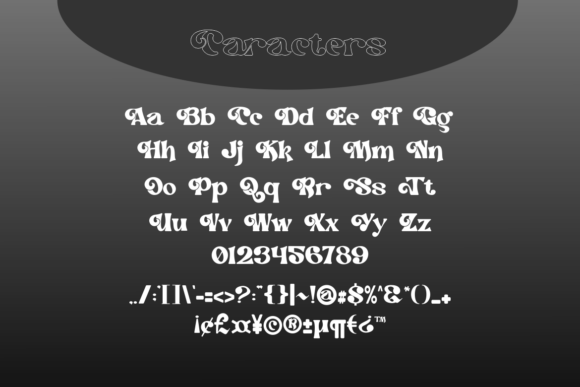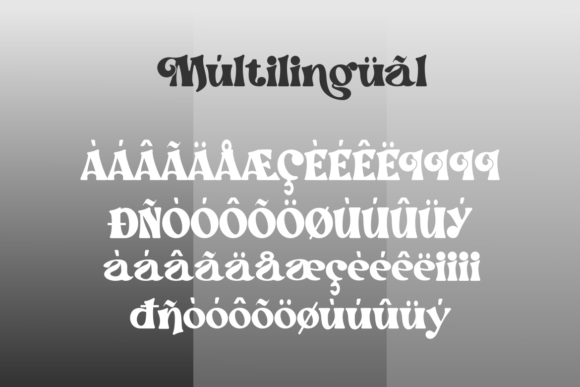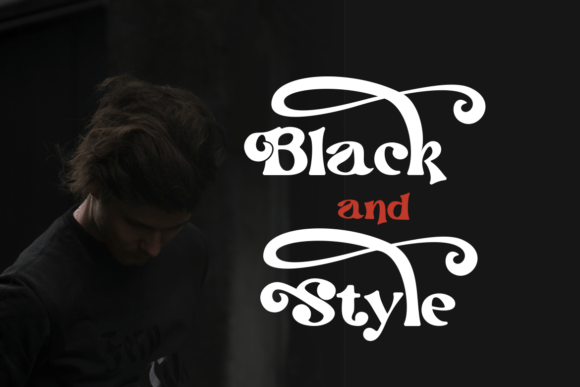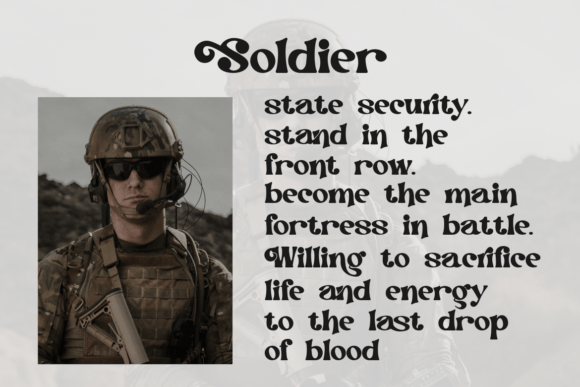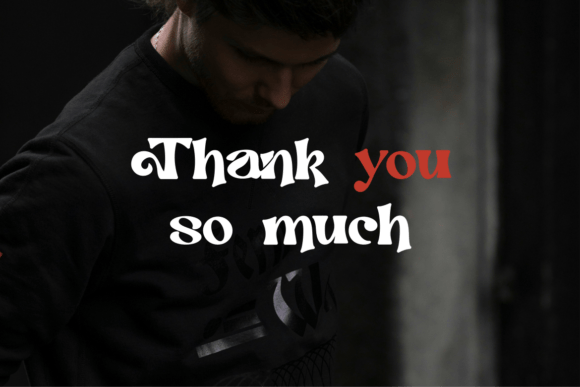
The Angely Font: A Modern-Vintage Masterpiece for Bold Designs
I still remember the design project that led me to discover the Angely font. I was working on a music festival poster, and I needed a typeface that would make a statement. I had tried countless fonts, but none seemed to capture the perfect blend of modernity and vintage charm. That was until I stumbled upon Angely. Its thick, luscious weight and dramatic swashes instantly elevated my design, and I knew I had found the perfect fit.
- ✨ Impactful and attention-grabbing: Angely is built for bold designs, making it perfect for headlines and titles that demand attention.
- ✅ Nostalgic yet modern: The font’s mid-century advertising vibe is refined for today’s high-resolution displays, giving it a fresh and contemporary feel.
- 💥 Custom-lettered look: The character-rich swashes can interlock and overlap, creating a unique, hand-crafted aesthetic.
- 📸 Pairs well with photography: Angely looks stunning with grainy black-and-white photography, adding an extra layer of depth to your designs.
Small Quirks and Limitations:
While Angely is an exceptional font, there are a few things to keep in mind:
- ⚠️ Legibility at smaller sizes: Due to its thick weight and ornate swashes, Angely may not be the best choice for body text or smaller font sizes.
- 🤔 Swash placement: Some swashes may not align perfectly, requiring manual adjustment for optimal results.
The Story Behind Angely: Designer Inspiration
Angely’s design is inspired by the golden age of advertising, when bold, eye-catching typography ruled the billboards and magazines. The font’s creator aimed to distill the essence of mid-century modern design, infusing it with a contemporary twist. The result is a typeface that feels both nostalgic and refreshingly modern.
| What is Angely’s primary use case? | Angely is designed for bold, attention-grabbing headlines and titles, making it perfect for music festival posters, streetwear branding, and editorial layouts. |
| Can I use Angely for body text? | While Angely is not ideal for body text, it’s best suited for short, punchy headlines where its character-rich swashes can shine. |
| Is Angely suitable for digital displays? | Yes, Angely is optimized for high-resolution digital displays, making it perfect for website headers, social media graphics, and more. |
| Can I customize Angely’s swashes? | Yes, Angely’s OpenType features allow you to access various swashes, stylistic alternates, and glyphs, giving you creative control over your designs. |